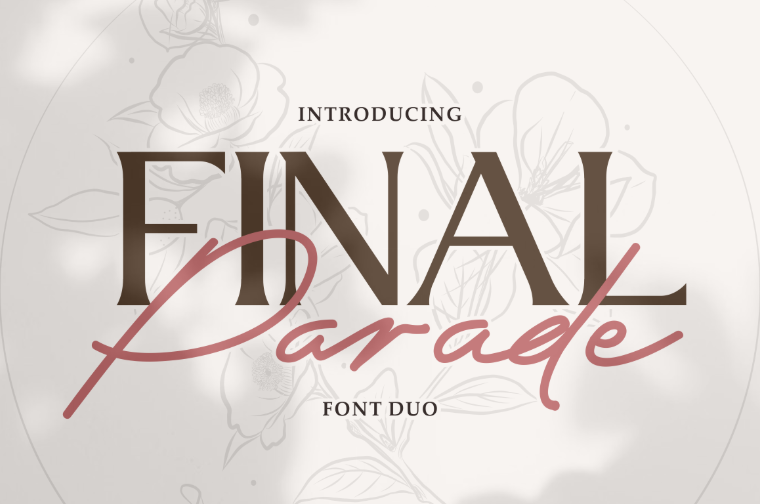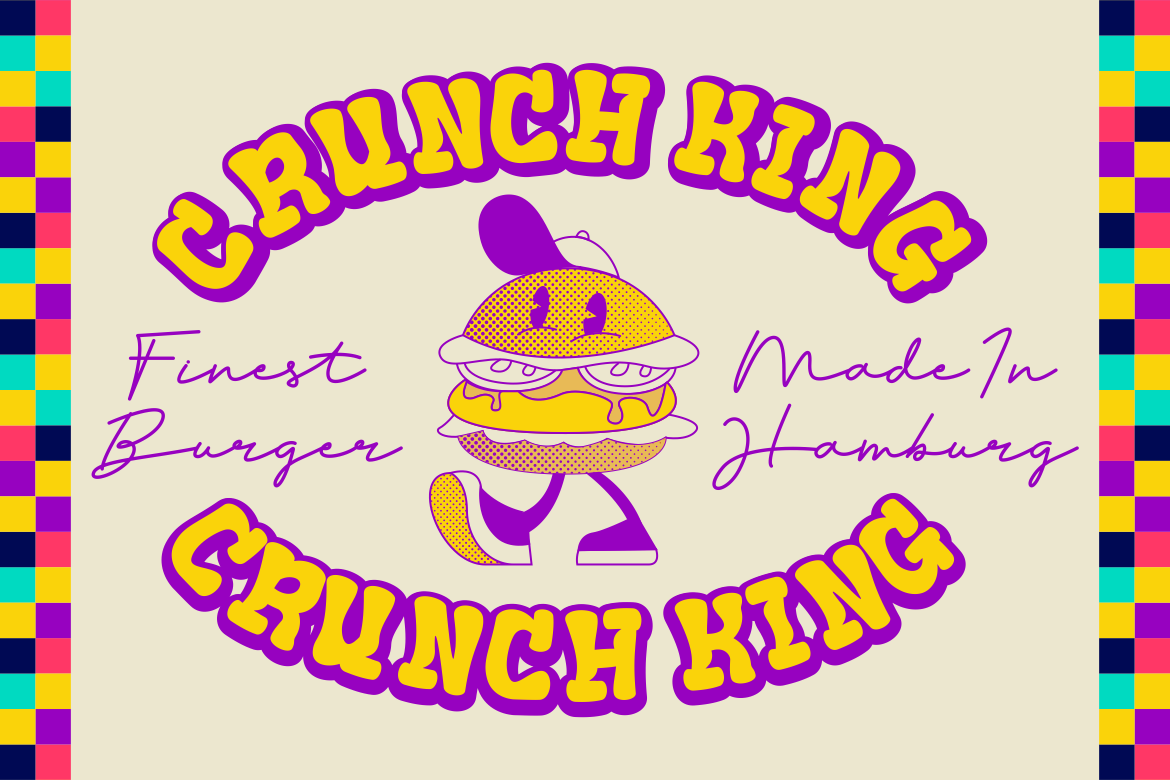
Typography is at the heart of any compelling T-shirt design. It tells your story, reinforces your brand, and catches attention from across the street. For designers on a budget or anyone launching a side hustle finding the best free fonts for T-shirt design can be the difference between a good shirt and a great one. The right font isn’t just about looking cool, it needs to be legible on fabric, scalable, and aligned with your message.
Whether you’re designing for a fashion brand, event merch, or just for fun, the fonts below offer quality, personality, and usability all at zero cost. From playful to punk, each one comes with distinct strengths and practical design applications.
If your designs lean toward quirky, playful, or cartoon-like themes, Sticky Glue is a fun pick. This font stretches and bounces across the baseline, making it perfect for children’s clothing, party shirts, or gag tees. The exaggerated shapes make a bold statement on bright fabric colors and large formats.
However, its stylized rhythm may reduce legibility on smaller prints. Keep it for short words or phrases where character matters more than readability. For designers seeking a similar commercial option, Sticky Glue on Putracetol offers even more refined edges and alternate characters.
For playful apparel aimed at kids or family-focused collections, Chubby Elephant hits all the right notes. With its soft edges and bubbly build, it brings a wholesome and cheerful vibe to baby onesies, birthday shirts, or family reunion merch.
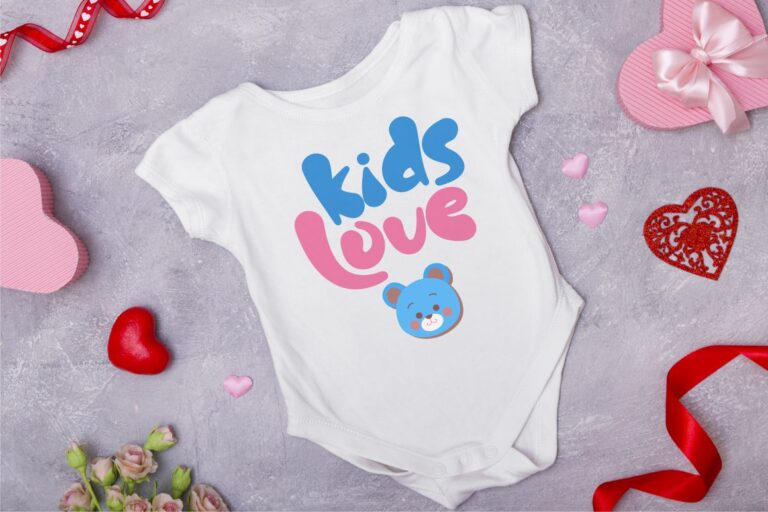
The boldness is an advantage it’s easy to read and weed when cutting vinyl. On the flip side, its chunkiness makes it less suitable for pairing with detailed graphics. Get the pro version at Putracetol if you’re looking for more stylistic control or license clarity.
Looking to add attitude to your next T-shirt release? Spooky Punk delivers. This distressed, angular font is made for punk aesthetics, urban designs, or seasonal Halloween collections.
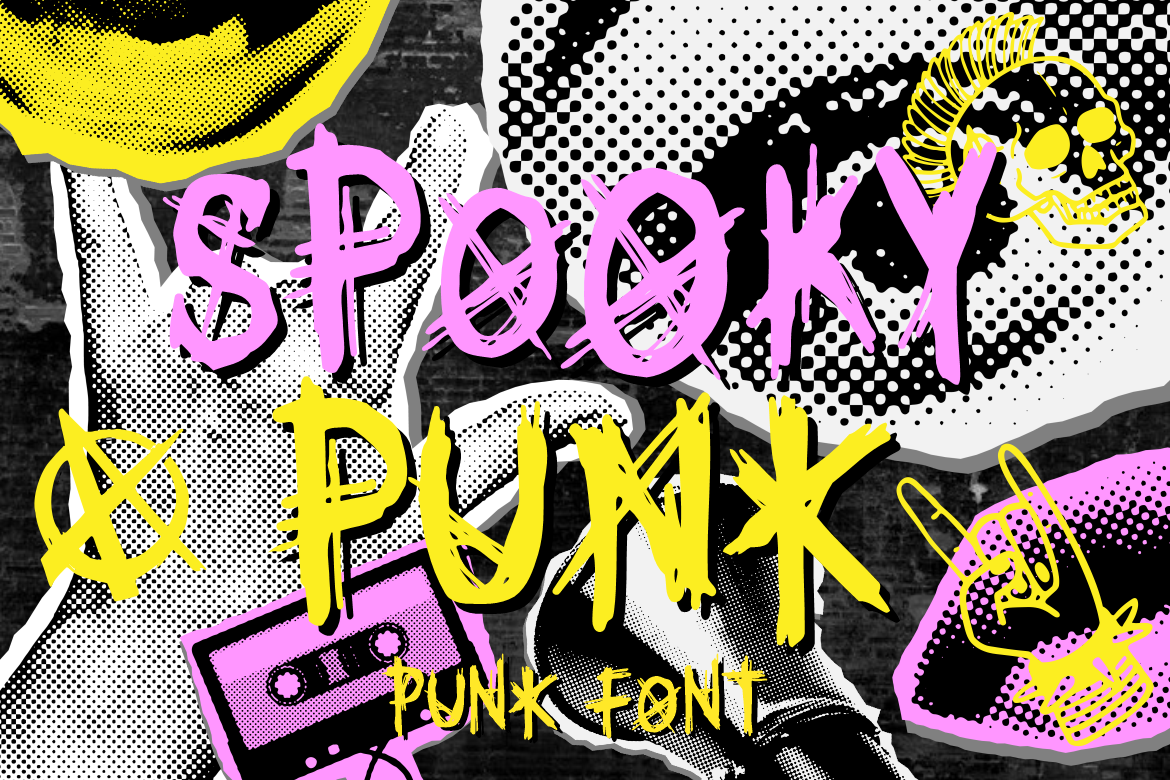
Its texture adds grit, which stands out beautifully on solid-colored tees or hoodies. However, be cautious with busy backgrounds it can become difficult to read if your layout is too crowded. A more detailed version is available on Putracetol’s Spooky Punk, which includes extra characters and smoother curves for professional use.
Nothing says friendly like a natural, handwritten font. Fun Art Friends is great for youth-oriented designs, school shirts, and anything DIY-themed. It adds a human touch without losing legibility—ideal for slogans, school clubs, or after-school programs.
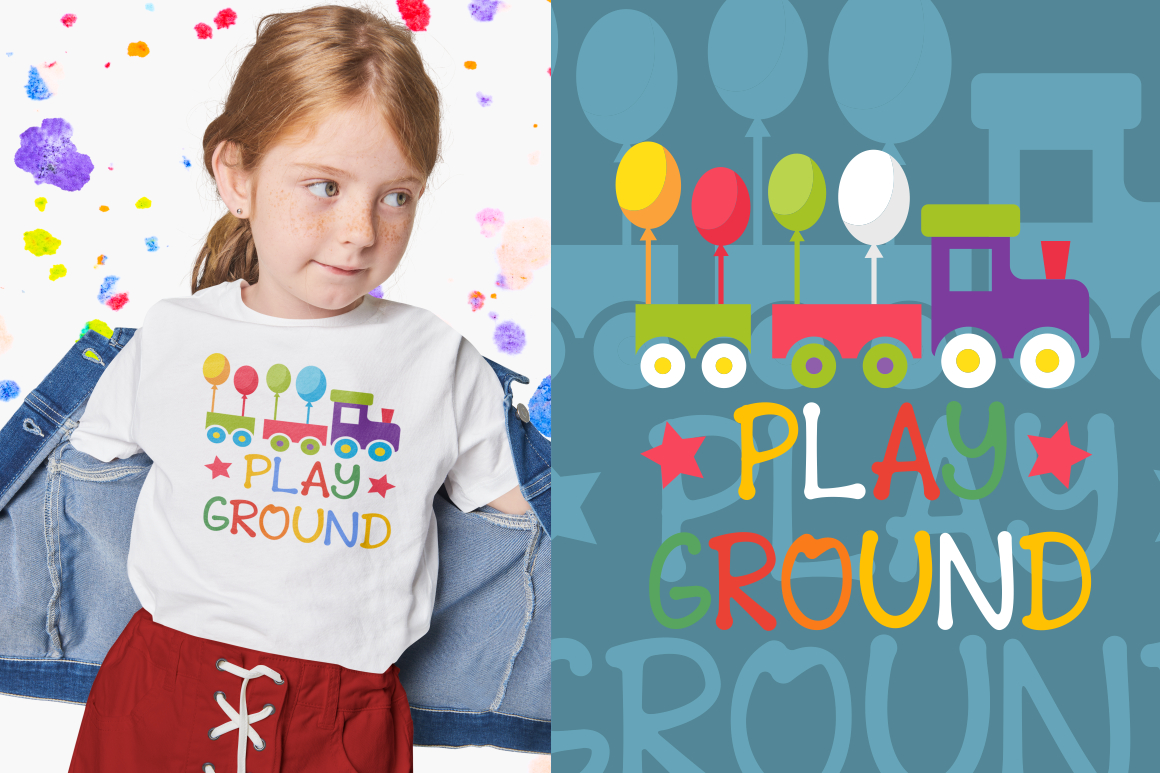
The main advantage is its simplicity. But if you’re after more alternates or bolder weights, the Putracetol version offers extended support for creative layouts.
When the goal is attention, Mega Boldy delivers. With its oversized, rounded letterforms, it’s a great fit for quote tees, promotional merch, or streetwear collections. This font maintains clarity even in compact designs, making it perfect for slogans or brand names.
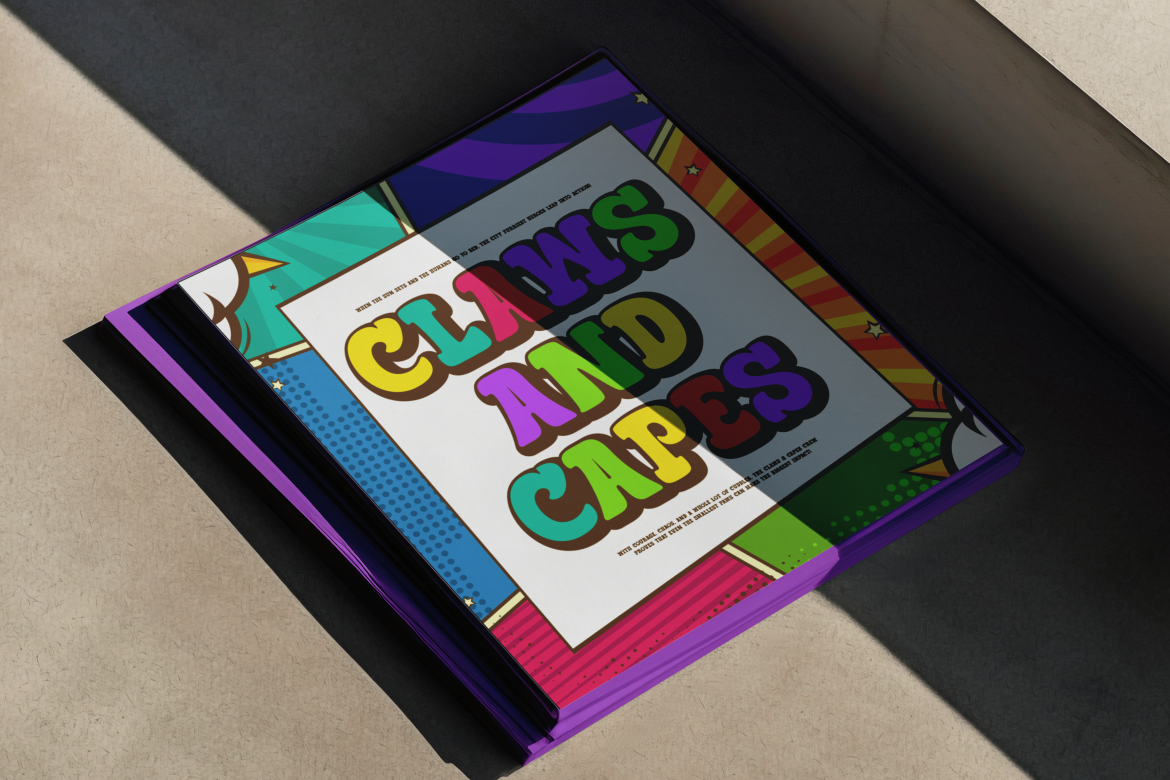
Its limitation lies in pairing because it’s so bold, it can dominate a layout. Try balancing it with a thin sans-serif or keep it as the sole visual focus. Explore the extended version on Putracetol for multilingual support and layered effects.
Designers chasing a 90s or comic-inspired look will love Typo Tingle. This free font plays with weight and curve in a way that feels nostalgic but fresh. It’s ideal for youth culture, meme shirts, or anything aiming for ironic charm.
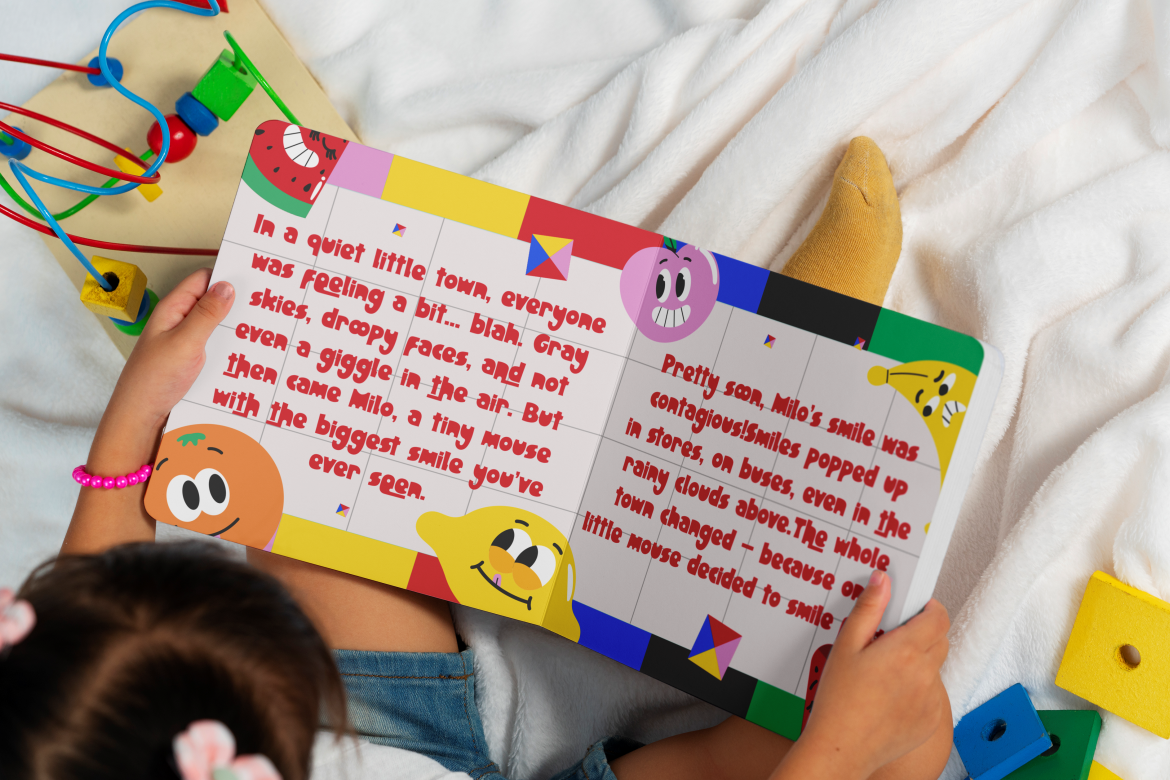
Use it large and in bold colors for maximum effect. Keep in mind that longer phrases might need line spacing adjustments due to its uneven baseline. The commercial version provides extras for better print control.
Need something modern for a tech event or gaming shirt? Lamphor One brings clean lines and futuristic aesthetics that fit right into esports, coding bootcamps, or sci-fi themed apparel.
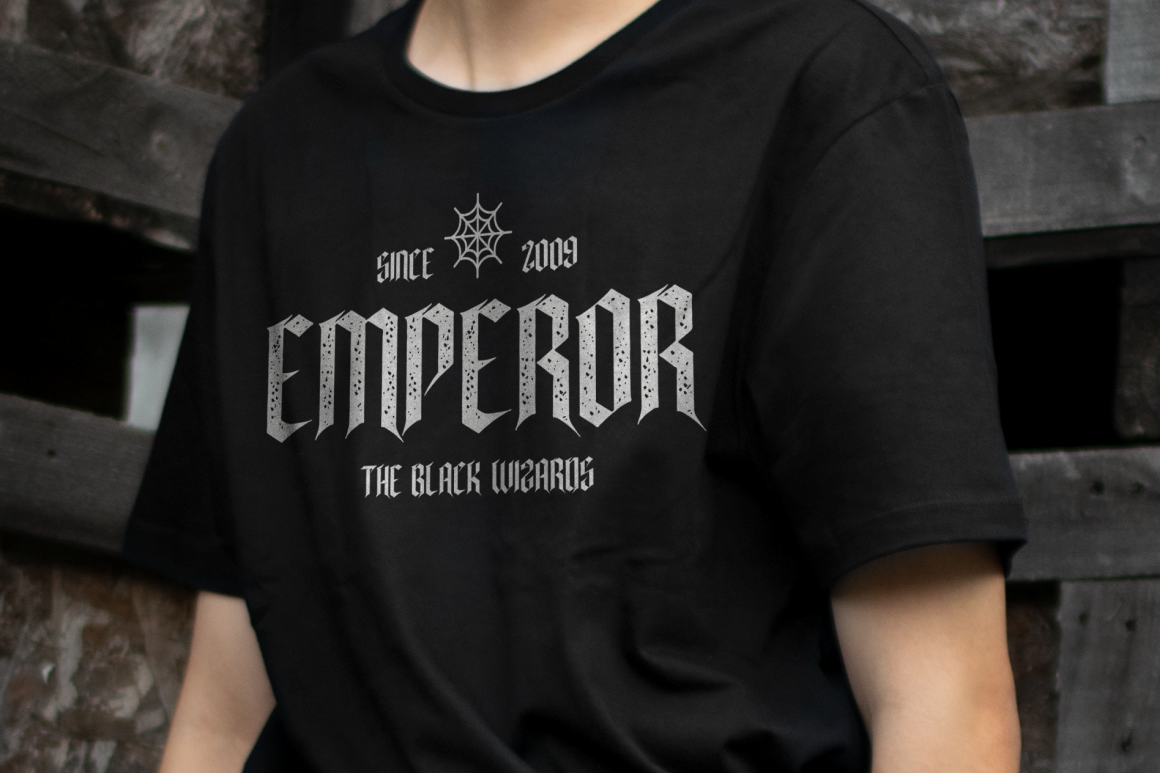
Its strength is clarity at various sizes. However, it may lack the warmth needed for casual or lifestyle branding. Try pairing it with a fun handwritten font like Fun Art Friends to soften the tone.
Shaky Halloween leans fully into its seasonal vibe. Great for October collections, haunted events, or themed family tees, this typeface mimics hand-drawn scratches with uneven lines and spooky charm.
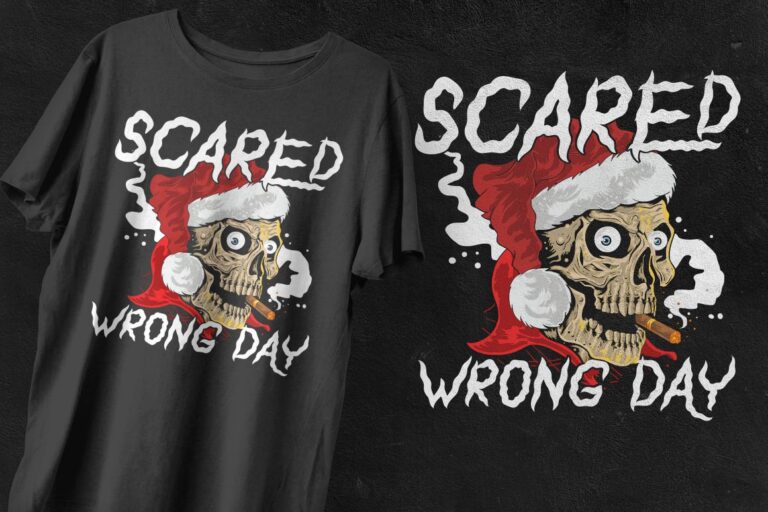
It prints best in large sizes with minimal background clutter. Like many decorative fonts, it struggles in long text or thin cuts. For high-res versions, visit Putracetol.
For fantasy-inspired designs or nature-centric messages, Rose Thorns blends sharp angles with petal-like curves. It suits cottagecore, floral branding, or even band merch when combined with earthy tones and organic patterns.
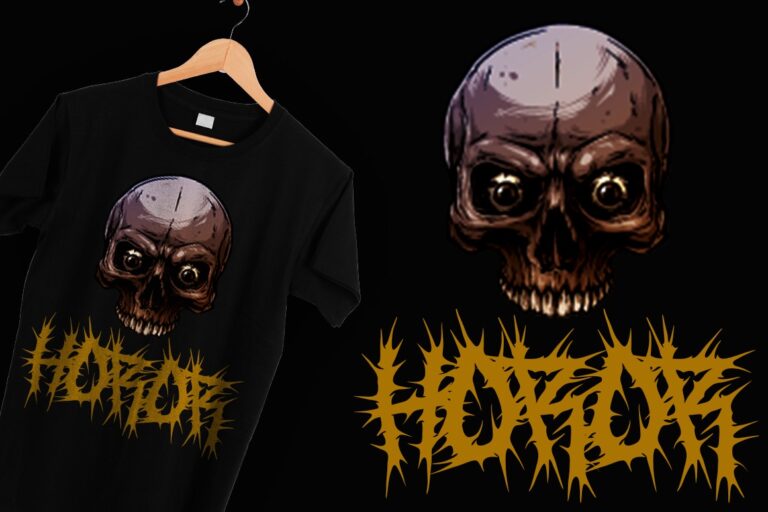
This font works best for headlines or title words. For readability, avoid using it in paragraph text. For something similar but more robust, try Rumble Thorns, which adds more stability to each glyph.